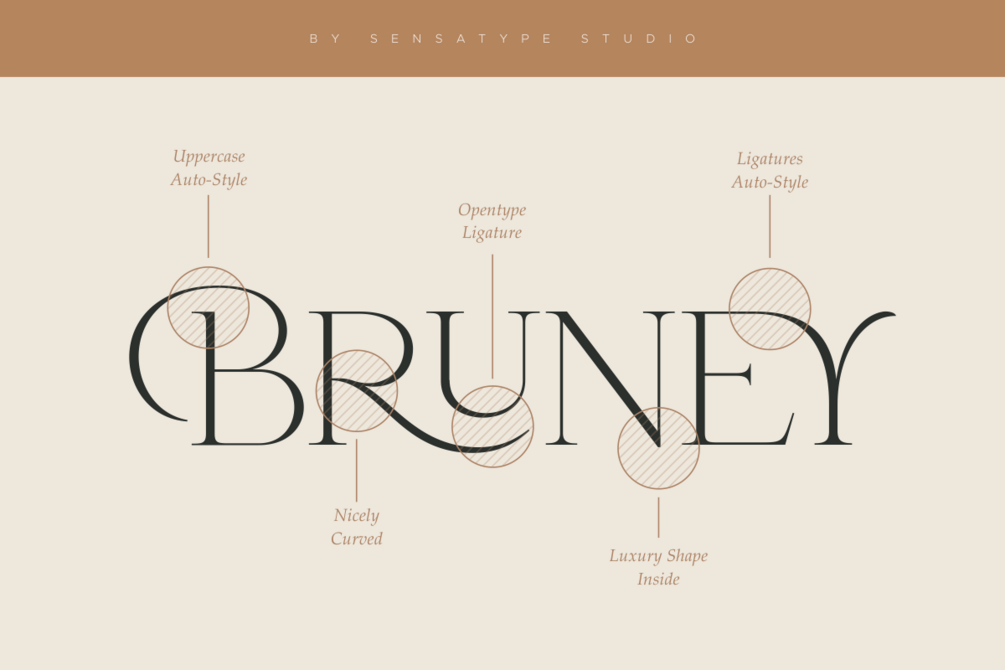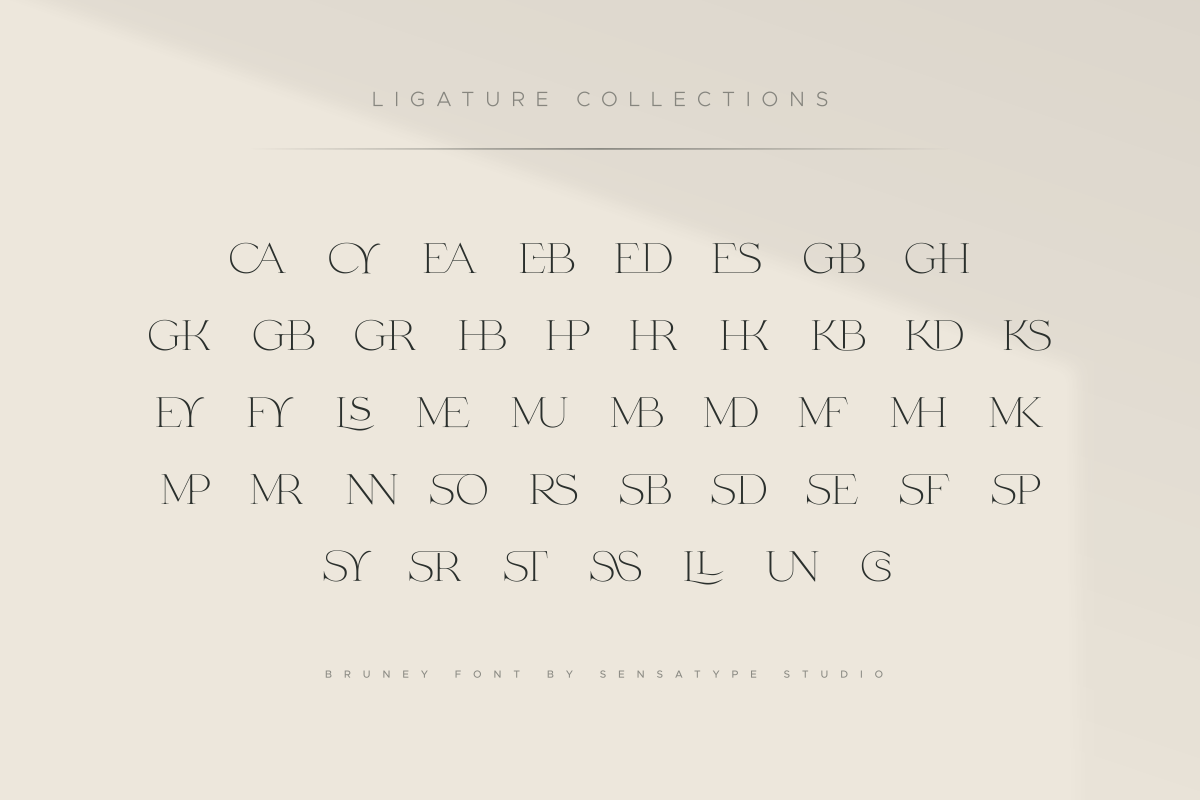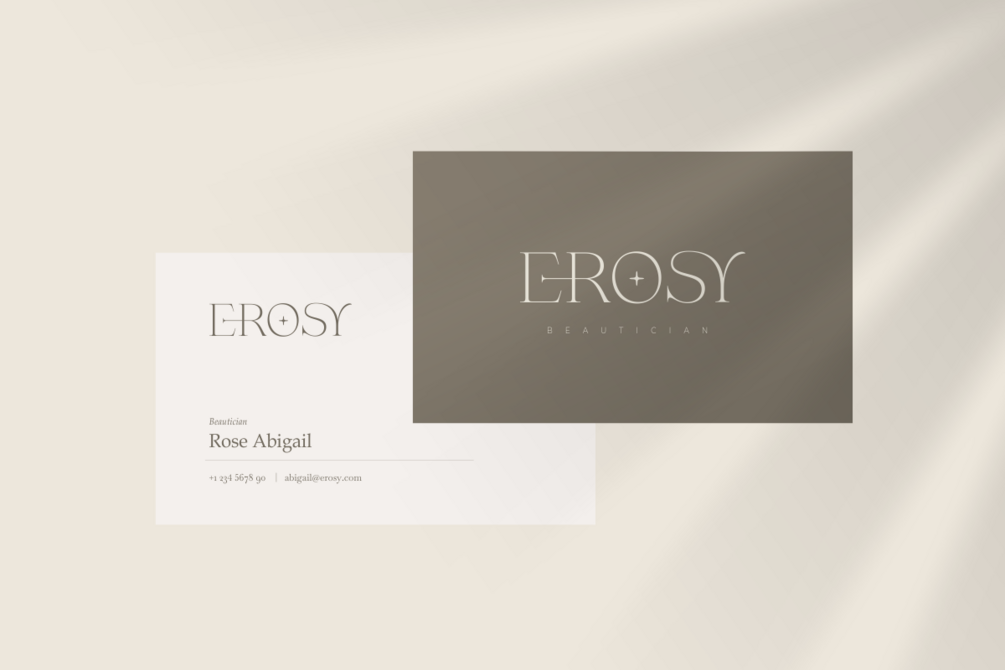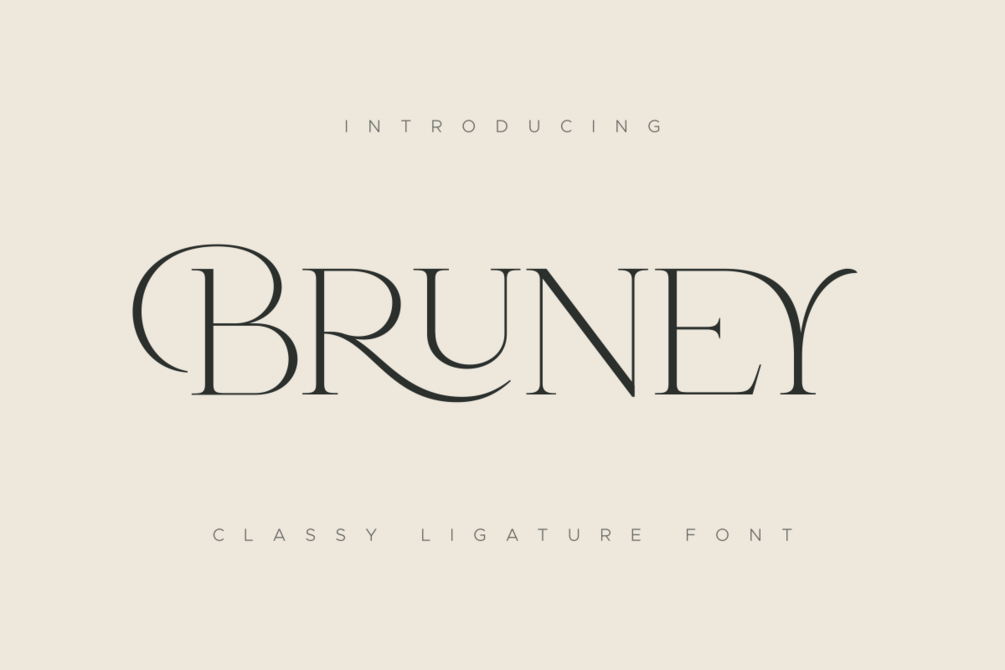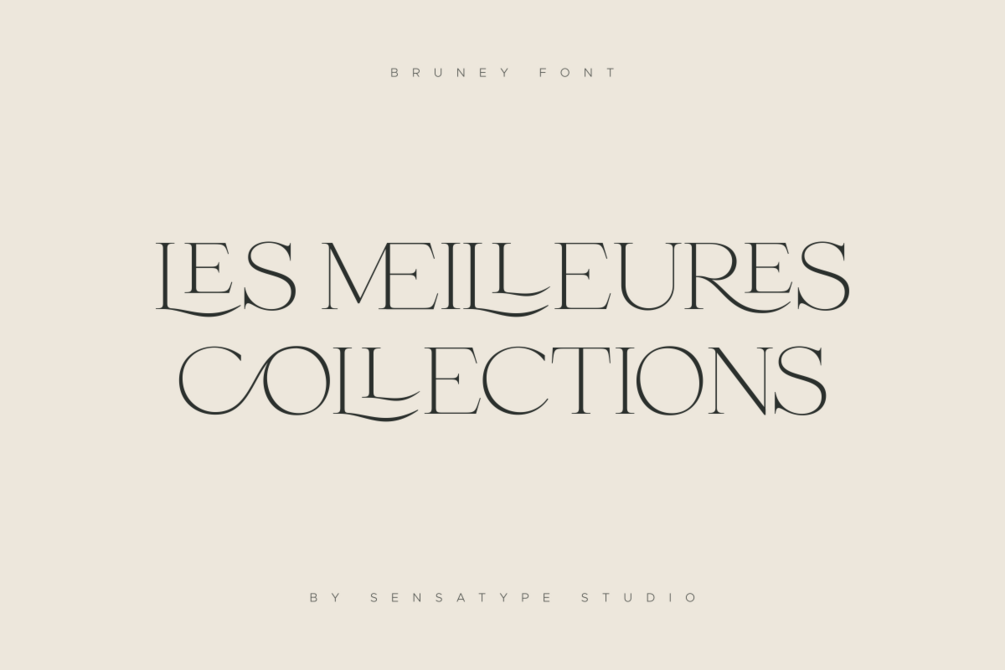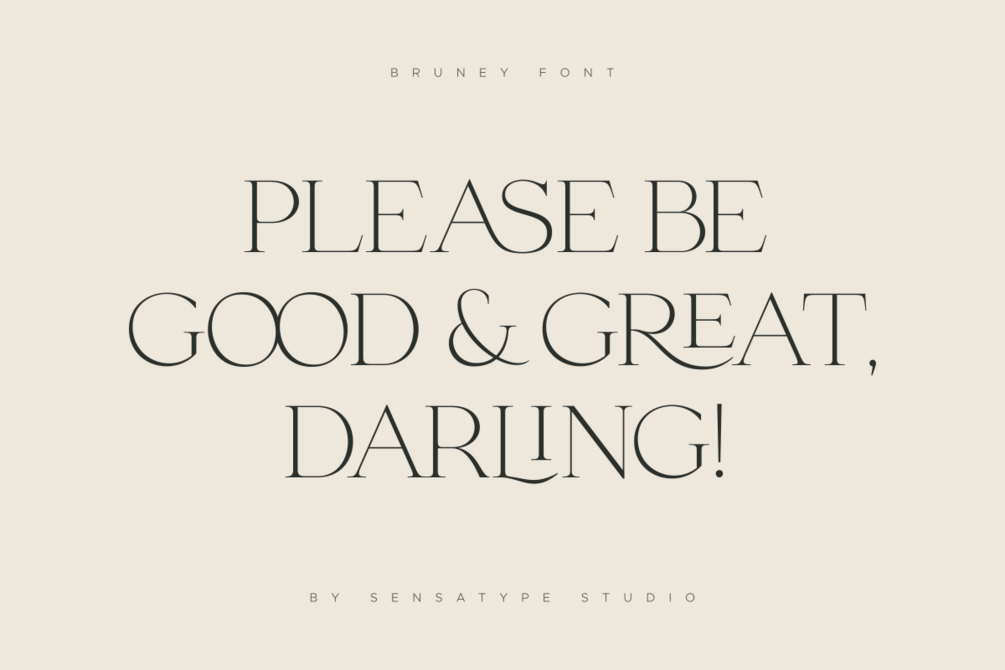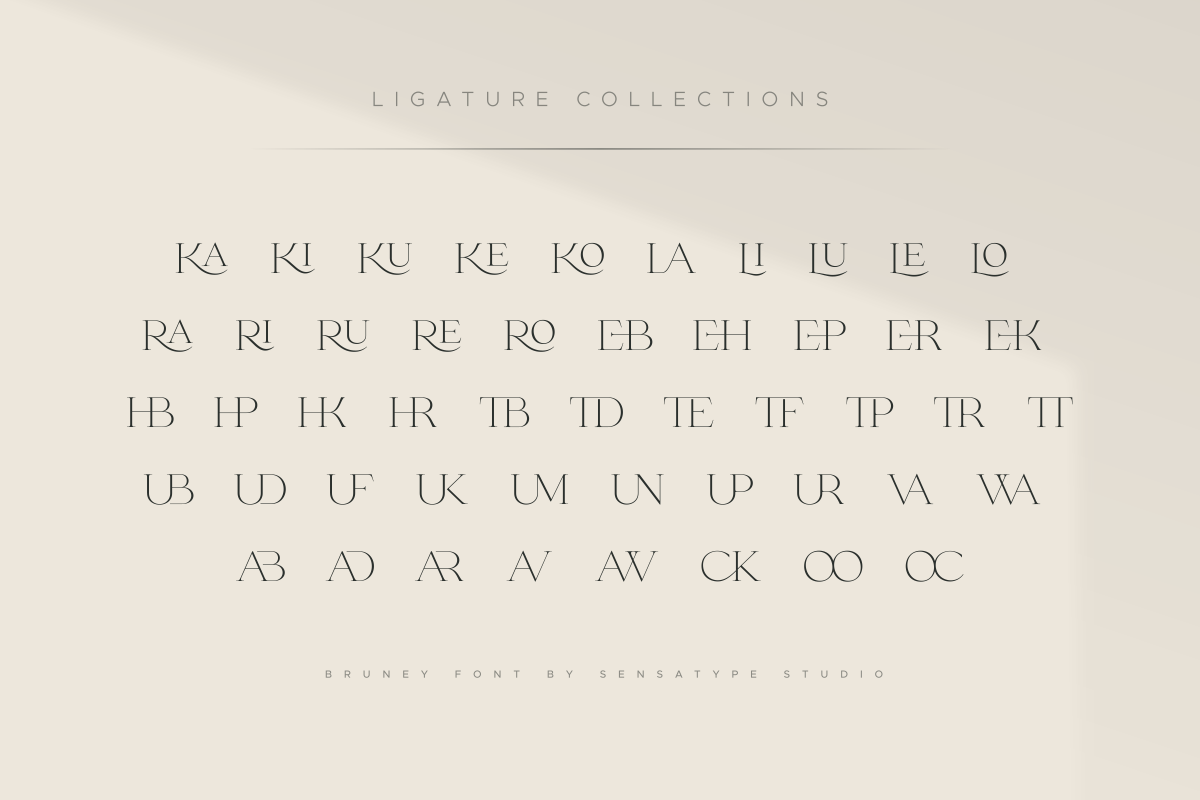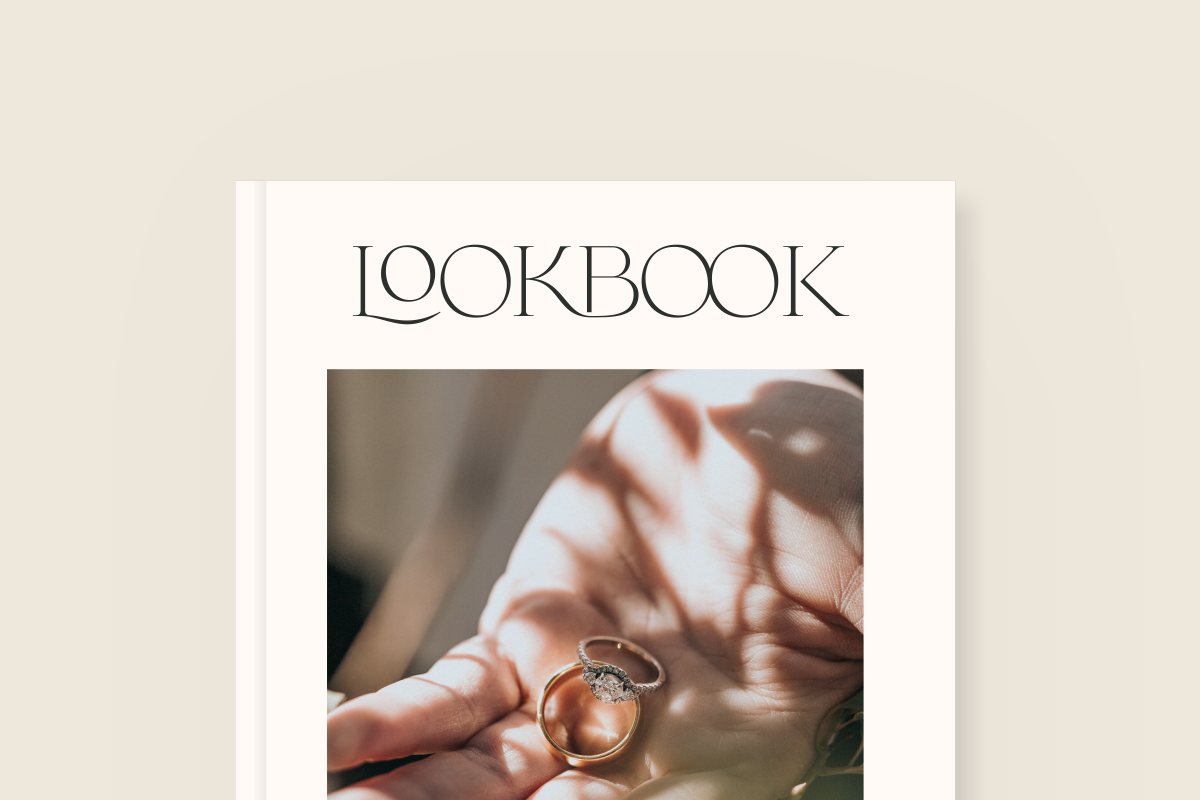
Bruney - Classy Font
Bruney is a classy ligature font crafted to bring elegance and sophistication to your designs. With its beautifully connected ligatures, it’s ideal for luxury branding, logos, headlines, invitations, and editorial projects.
Its refined letterforms maintain readability while adding a unique, high-end touch to every design. Perfect for both print and digital use, BRUNEY elevates your creative work with style and professionalism.
Bruney – Classy Ligature Font Features
- Elegant ligature-based letterforms for a refined look
- Stylish, classy, and professional design
- Includes uppercase, lowercase, numerals, punctuation, and ligatures
- Suitable for digital and print projects
- OpenType features for versatile typography
- Multilingual support